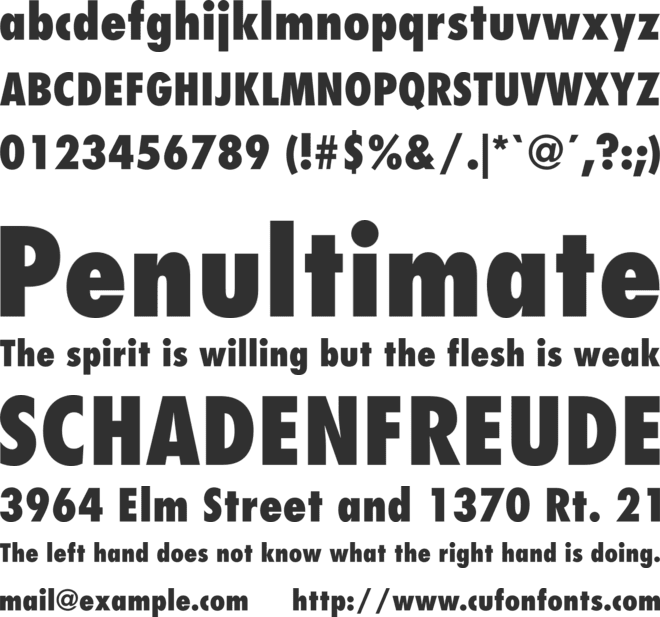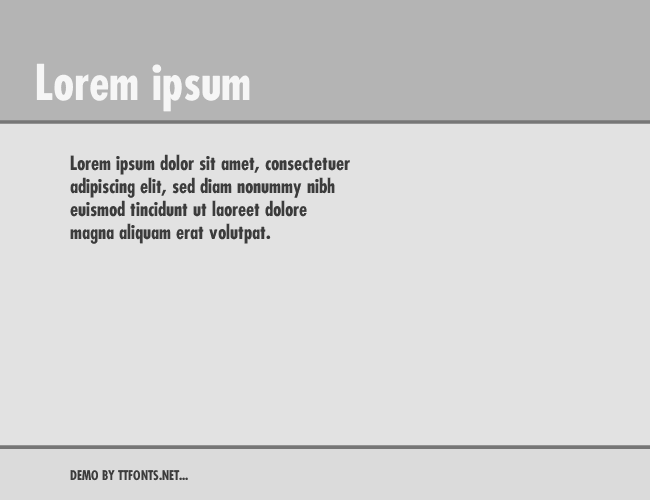
Futura Bold Condensed Font - The font version is 001.000 and its license is:. This font features a bold and condensed style with clean, geometric shapes. The author of the font is unknown. The uppercase and lowercase letters are well. Online fonts — a site about fonts that has tens of categories and thousands of typefaces
The author of the font is unknown. This font features a bold and condensed style with clean, geometric shapes. The font version is 001.000 and its license is:. Online fonts — a site about fonts that has tens of categories and thousands of typefaces The uppercase and lowercase letters are well.
Online fonts — a site about fonts that has tens of categories and thousands of typefaces The font version is 001.000 and its license is:. The uppercase and lowercase letters are well. This font features a bold and condensed style with clean, geometric shapes. The author of the font is unknown.
Online fonts — a site about fonts that has tens of categories and thousands of typefaces The uppercase and lowercase letters are well. The author of the font is unknown. This font features a bold and condensed style with clean, geometric shapes. The font version is 001.000 and its license is:.
The author of the font is unknown. This font features a bold and condensed style with clean, geometric shapes. The font version is 001.000 and its license is:. The uppercase and lowercase letters are well. Online fonts — a site about fonts that has tens of categories and thousands of typefaces
The font version is 001.000 and its license is:. The author of the font is unknown. The uppercase and lowercase letters are well. Online fonts — a site about fonts that has tens of categories and thousands of typefaces This font features a bold and condensed style with clean, geometric shapes.
The uppercase and lowercase letters are well. This font features a bold and condensed style with clean, geometric shapes. The author of the font is unknown. The font version is 001.000 and its license is:. Online fonts — a site about fonts that has tens of categories and thousands of typefaces
Online fonts — a site about fonts that has tens of categories and thousands of typefaces This font features a bold and condensed style with clean, geometric shapes. The uppercase and lowercase letters are well. The font version is 001.000 and its license is:. The author of the font is unknown.
Online fonts — a site about fonts that has tens of categories and thousands of typefaces The font version is 001.000 and its license is:. The author of the font is unknown. The uppercase and lowercase letters are well. This font features a bold and condensed style with clean, geometric shapes.
The author of the font is unknown. The uppercase and lowercase letters are well. Online fonts — a site about fonts that has tens of categories and thousands of typefaces This font features a bold and condensed style with clean, geometric shapes. The font version is 001.000 and its license is:.
The uppercase and lowercase letters are well. Online fonts — a site about fonts that has tens of categories and thousands of typefaces The font version is 001.000 and its license is:. This font features a bold and condensed style with clean, geometric shapes. The author of the font is unknown.
The uppercase and lowercase letters are well. The author of the font is unknown. Online fonts — a site about fonts that has tens of categories and thousands of typefaces The font version is 001.000 and its license is:. This font features a bold and condensed style with clean, geometric shapes.
Online fonts — a site about fonts that has tens of categories and thousands of typefaces This font features a bold and condensed style with clean, geometric shapes. The font version is 001.000 and its license is:. The uppercase and lowercase letters are well. The author of the font is unknown.
This Font Features A Bold And Condensed Style With Clean, Geometric Shapes.
Online fonts — a site about fonts that has tens of categories and thousands of typefaces The font version is 001.000 and its license is:. The author of the font is unknown. The uppercase and lowercase letters are well.